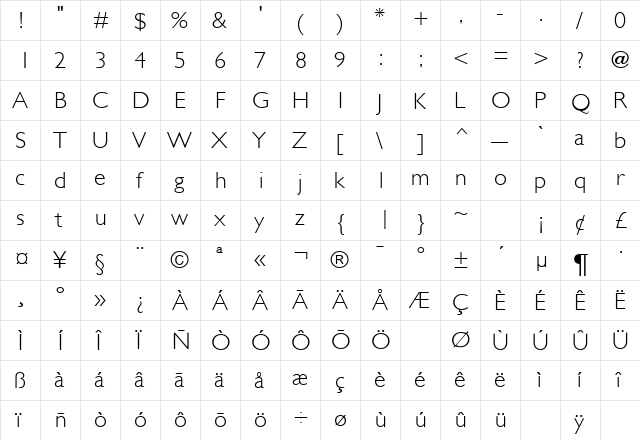
Gentle Sans Light Regular
Design Context for Gentle Sans Light Typeface
Gentle Sans Light is a composed and adaptable typeface that performs quietly and consistently across a wide range of design contexts. Its slender proportions lend an understated elegance to any composition.
Pro Tip: Pair Gentle Sans Light with a font of contrasting weight or personality to build a more expressive typographic hierarchy.